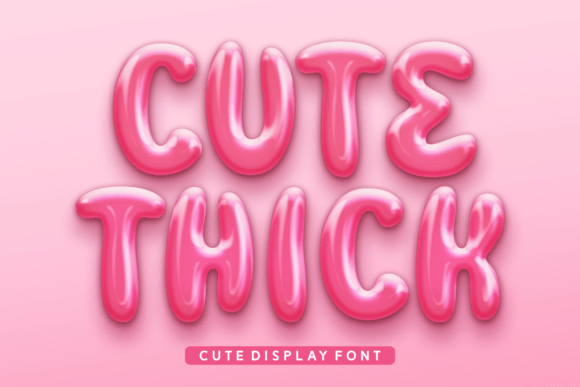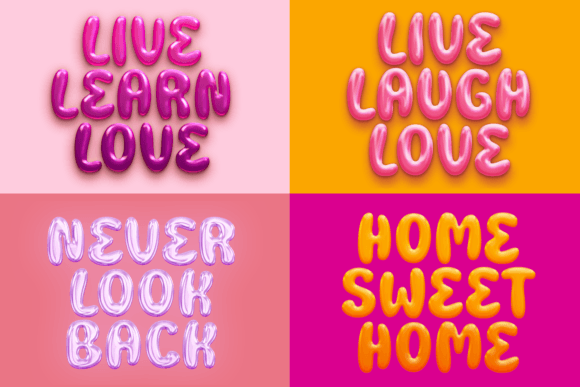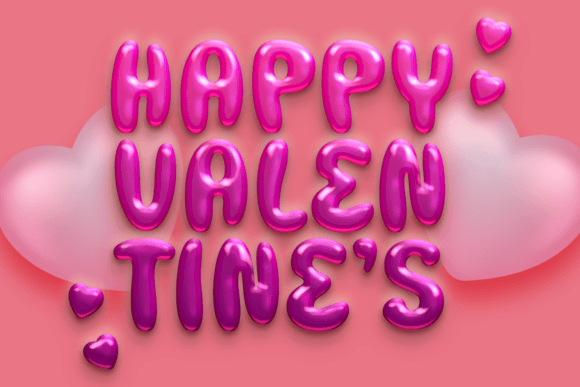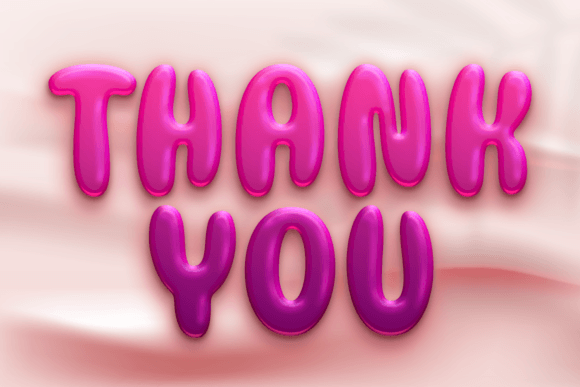
Cute Thick Font
Meet “Cute Thick,” the bubbly display font that’s as charming as a bunch of balloons! With its adorable and rounded letterforms, Cute Thick brings a playful and lighthearted vibe to your designs. Perfect for adding a touch of whimsy to birthday cards, party invitations, or any project that needs a dose of cuteness, this font is sure to lift spirits and spread joy. Embrace the sweetness of Cute Thick for a delightful and cheerful typographic experience!